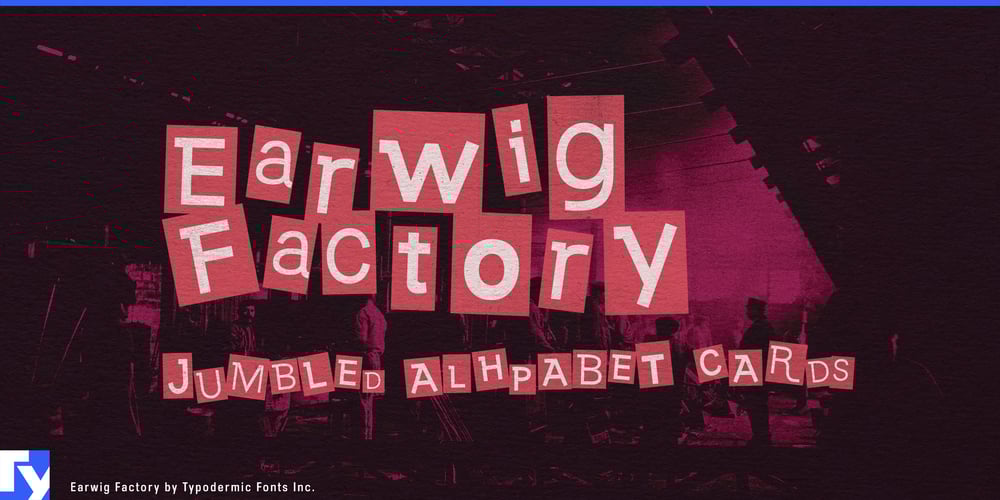
Earwig Factory Font Family was designed by Ray Larabie and published by Typodermic. Earwig Factory contains 3 styles and family package options. Earwig Factory: The typeface that turns typography into a psychedelic carnival. This Typodermic Fonts creation isn’t just a font—it’s a hallucinogenic trip through the looking glass of conventional design.Born in a fever dream of creative audacity, Earwig Factory hurls jumbled cut-outs and scattered characters onto the page like confetti at a surrealist parade. But the true magic unfolds in OpenType-savvy programs, where letters and numerals dance in pseudorandom patterns, ensuring every use is a unique performance. Earwig Factory doesn’t just break the mold—it tosses the pieces into a kaleidoscope. The “letters” and “cards” styles invite you to become the ringmaster of your own typographic circus, layering colors and textures with wild abandon. Add a slightly offset “cards” layer, and watch as your text casts impossibly playful shadows.Earwig Factory speaks the international language of whimsy, supporting a vast array of Latin-based European writing systems. From the avant-garde galleries of Paris to the underground clubs of Prague, your message retains its mind-bending charm across borders. This isn’t a typeface for the faint of heart. It’s for designers who see the page as a playground and rules as mere suggestions. It’s for brands that don’t just think outside the box—they reshape it into a hat and pull rabbits from it. It’s for messages that need to do more than communicate—they need to captivate, confound, and delight.Ready to dive down the typographic rabbit hole? Embrace Earwig Factory and watch your designs transcend the ordinary. In a world often gray with conformity, Earwig Factory explodes like a confetti cannon of creativity, transforming every project into a celebration of the absurd and the amazing.